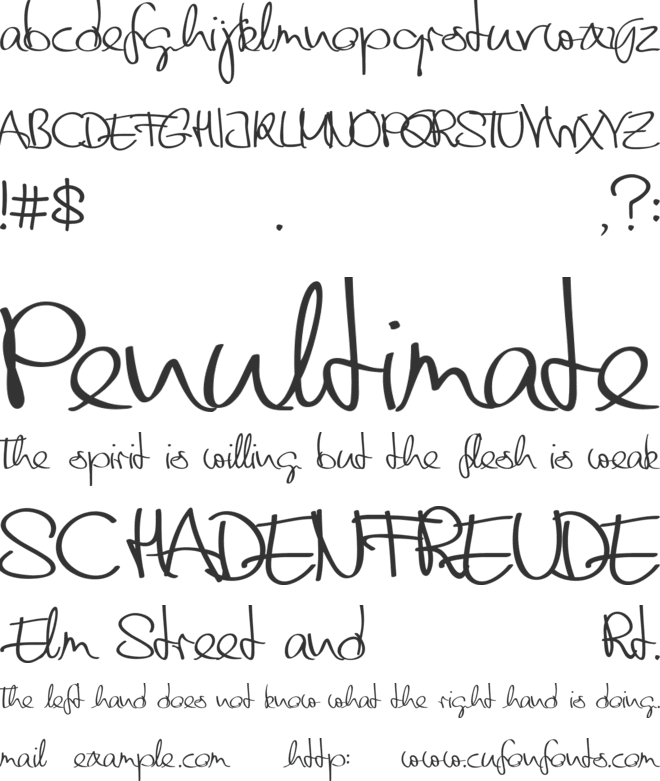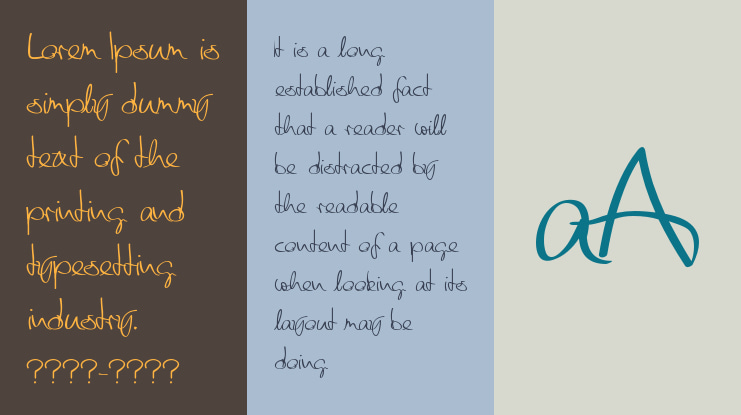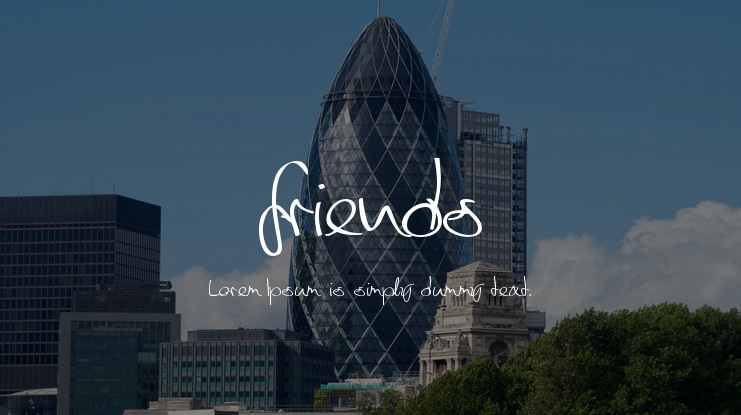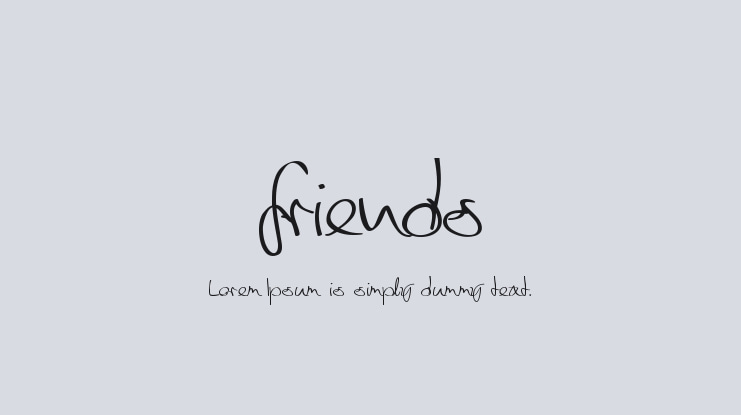
friends Font
Christoph Dörre
Friends is a mix of a script and handwritten font, with a dynamic touch. The full version with over 400 glyphs includes numbers, special characters and language support!